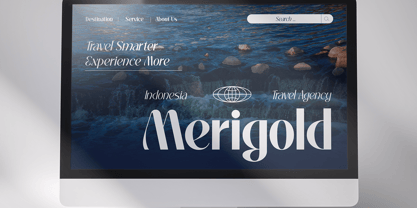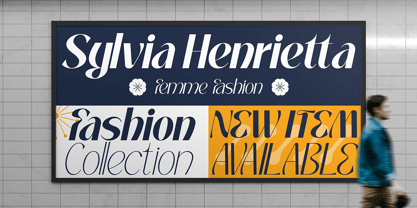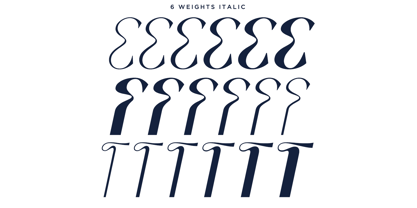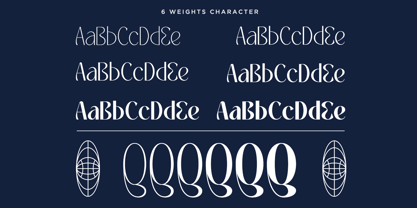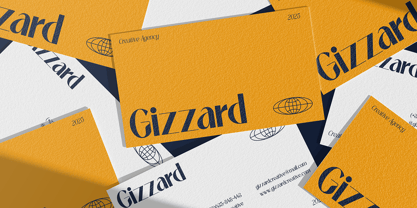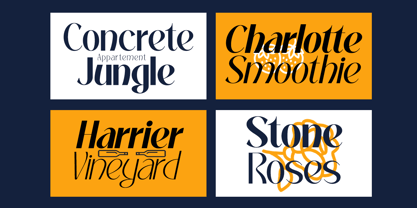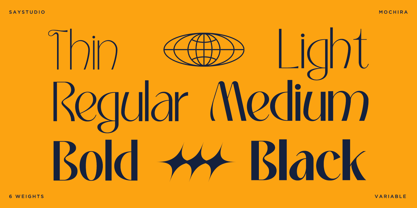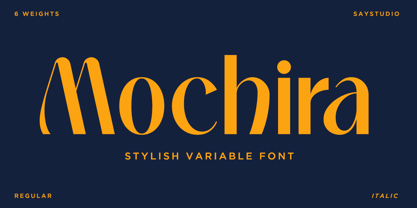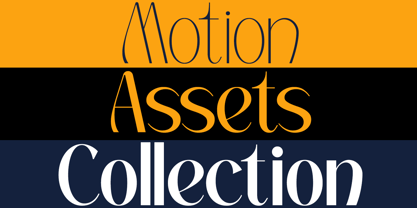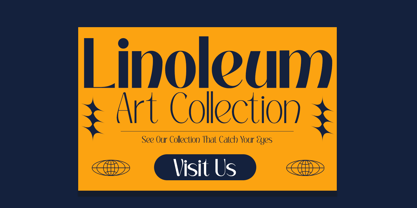
Mochira
The Mochira Font Family was designed by Mussyayin and published by Say Studio. Mochira contains 12 styles and family package options. More about this family
Mochira is stylish variable sans font is a highly versatile and elegant serif font that exudes a timeless charm. With its beautifully crafted curves and exquisite details, Mochira is the perfect choice for a wide range of design projects. Whether you need a font for display purposes, web design, or social media, Mochira will effortlessly elevate your creations to the next level. Its fancy curves add a touch of sophistication and uniqueness, making it a standout choice among other fonts.